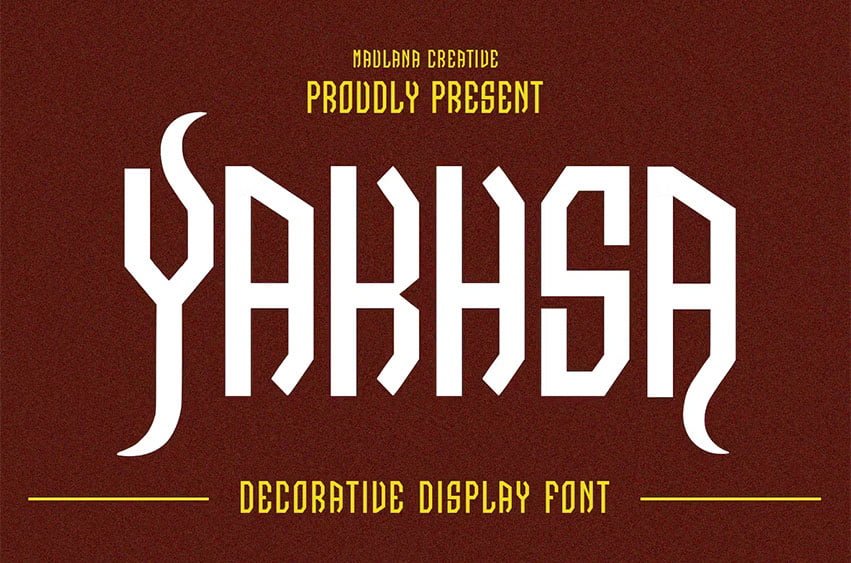
Yakhsa Font Decorative Display Font. Bold stroke, fun character with a bit of ligatures and alternates. To give you an extra creative work. Yakhsa font support multilingual more than 100+ language. This font is good for logo design, Social media, Movie Titles, Books Titles, a short text even a long text letter and good for your secondary text font with script or serif. Make a stunning work with Yakhsa font.